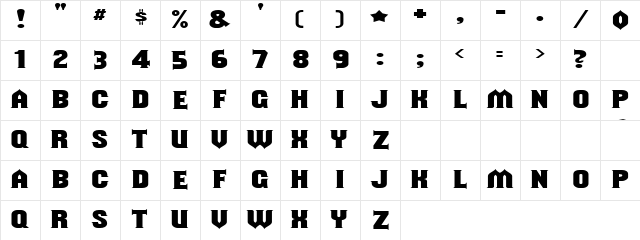
Bratish Wild Bold Regular
Design Context for Bratish Wild Bold Typeface
Bratish Wild Bold is a composed and adaptable typeface that performs quietly and consistently across a wide range of design contexts. The heavy weight commands attention and anchors typographic hierarchies.